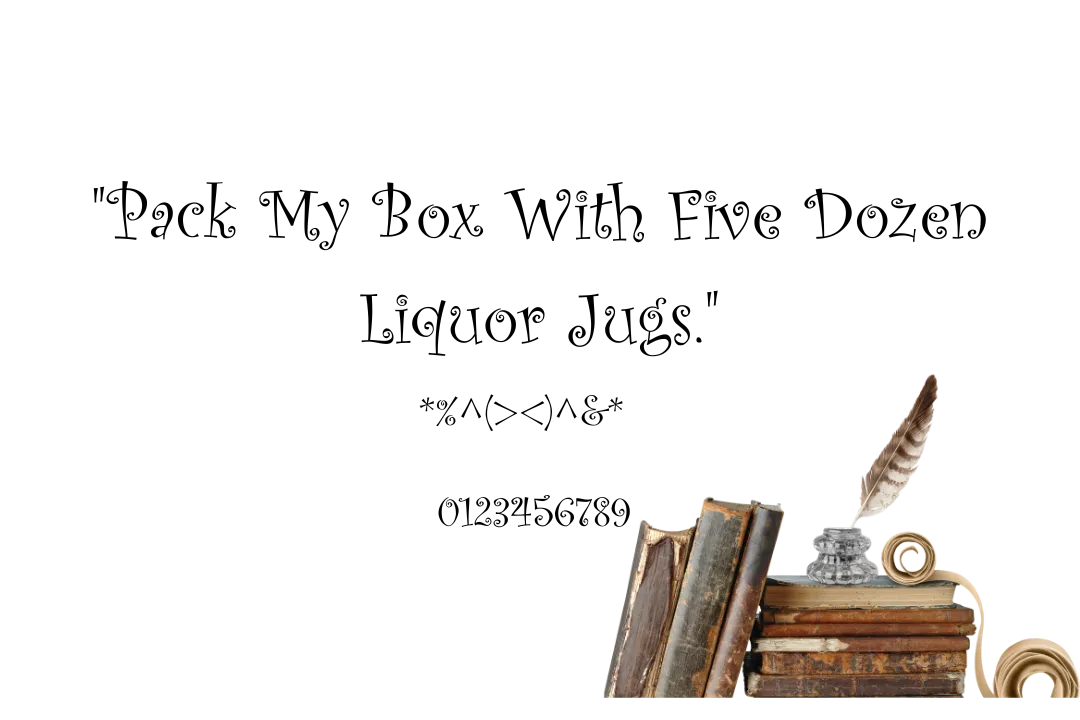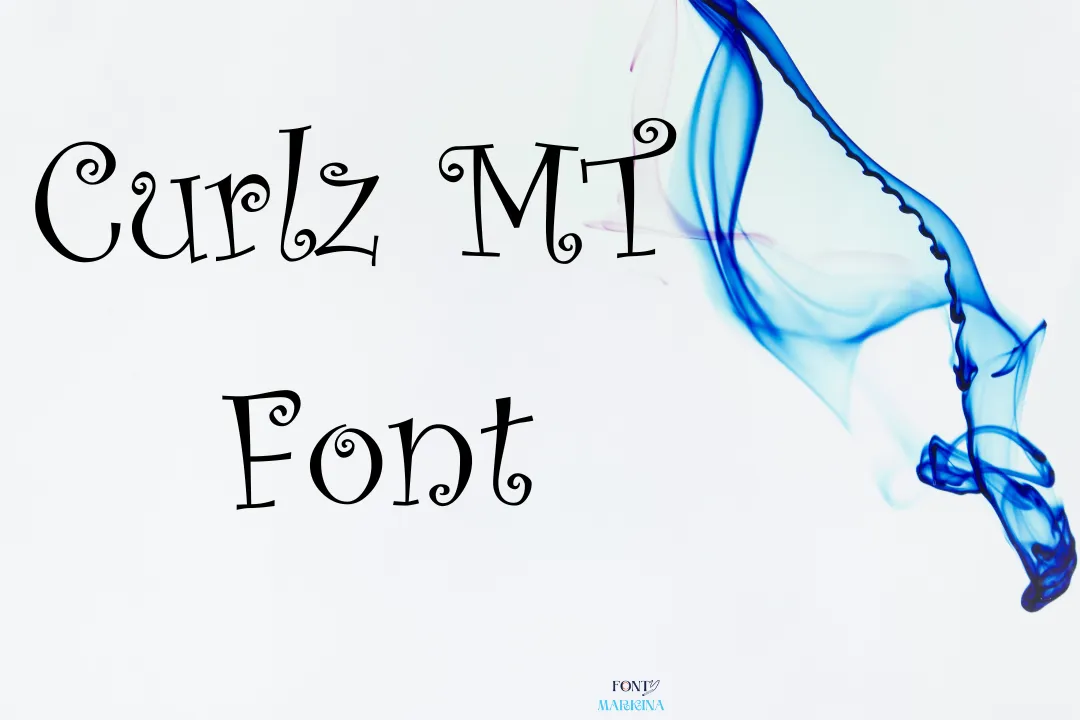
The typeface which is under our discussion is Curlz MT Font which falls in the classification of the decorative or script family of fonts. This typography has 200 distinctive and stylish glyphs.
This texture has decorative look and advanced features. Because of its traditional glimpse, this family is becoming popular day after day. The copy-and-paste function of this family is very beneficial in the case of text design projects and functions.
Also, its closest Balladeer font is very helpful in designing. The text generator tool of this bold features family is very helpful in the case of conversation of simple text designs to colorful graphic designs. After using this family you will notice its stunning and advanced results.
Designer of Curlz MT Font
This stunning typeface was developed by two popular and brilliant minds creators Carl Crossgrove and Steve Matteson. They designed this family in 1995 for the first time.
Uses of Curlz MT Font
This stunning texture is commonly used for a bunch of designing themes like clothes designs, and different other designing projects and functions. You can also pick out the Curlz MT font family and put it in all of your creative projects. For PowerPoint presentations and motion graphics this font is the best choice. For Abode Photoshop this family is allowed free to use anywhere.
All higher organizations wish to use such a wonderful font because it gives classic results for their projects and functions. In different higher-level companies, this typography is included in the top-level font and used for a lot of higher functions. For more classic results you can make the proper pairing of this family with Midway font.
What is Curlz MT font?
This typography lies in the category of decorative or script family and has 3 styles and different outstanding glimpses.